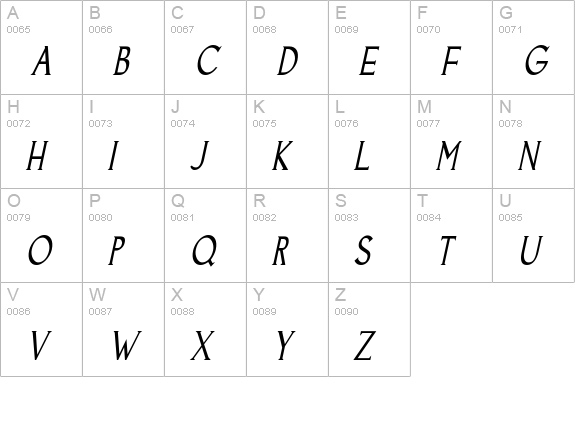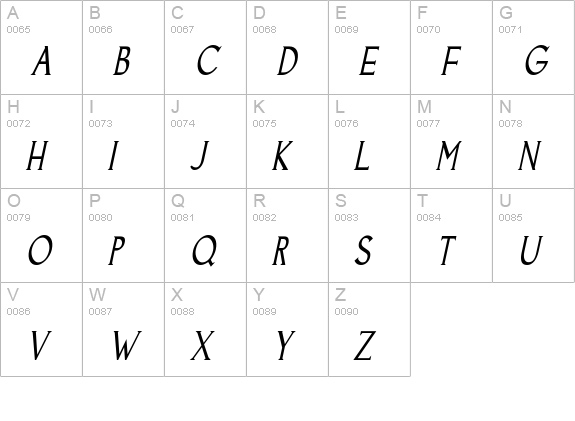
Goodfish Italic is a distinctive, italic variant in the Goodfish typeface family \xE2\x80\x94 well suited to design and typography projects.
Discover the exquisite beauty and modern elegance of Goodfish Italic font. With its sleek, flowing lines and sophisticated design, Goodfish Italic brings a touch of sophistication to any project. This versatile font is perfect for adding a touch of flair to your designs, whether for branding, advertising, invitations, or any other creative endeavor. What sets Goodfish Italic apart is not only its stunning aesthetics but also its accessibility - it is available for free download at FontsMarket.com. This means that you can elevate your designs without breaking the bank, making Goodfish Italic the perfect choice for designers looking to make a statement without compromising on quality. Embrace the beauty of Goodfish Italic and make your designs stand out with this stylish and versatile font. Download it for free today at FontsMarket.com and see the difference it can make in your projects.